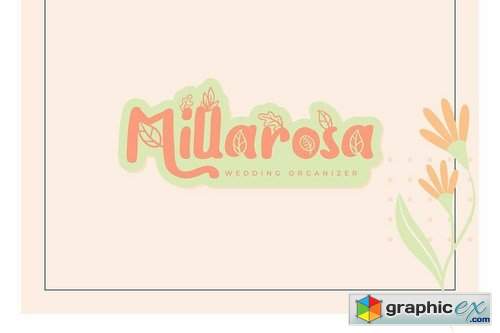
Candreeva Fancy Flower Typeface Font
Candreeva | Fancy Flower Typeface Font with a calligraphy style, So beautiful on invitation like greeting cards, branding materials, business cards, quotes, posters, and more!